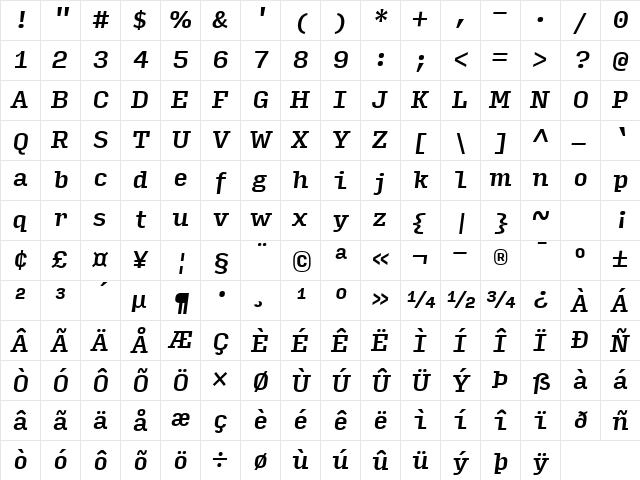
Complete Input Serif Narrow Medium Italic glyph index. Displaying only characters natively supported by Input Serif Narrow Medium Italic font.
Input Serif Narrow carries the refined structure of traditional serif typography, with bracketed terminals and considered proportions that communicate credibility and craft. The slanted form adds forward momentum and visual energy. Its narrow stance lets it pack a punch even in space-constrained designs.
Pro Tip: Use Input Serif Narrow for editorial body copy and considered headline work. Pair with a neutral sans for UI elements or captions to create a classic hierarchy.